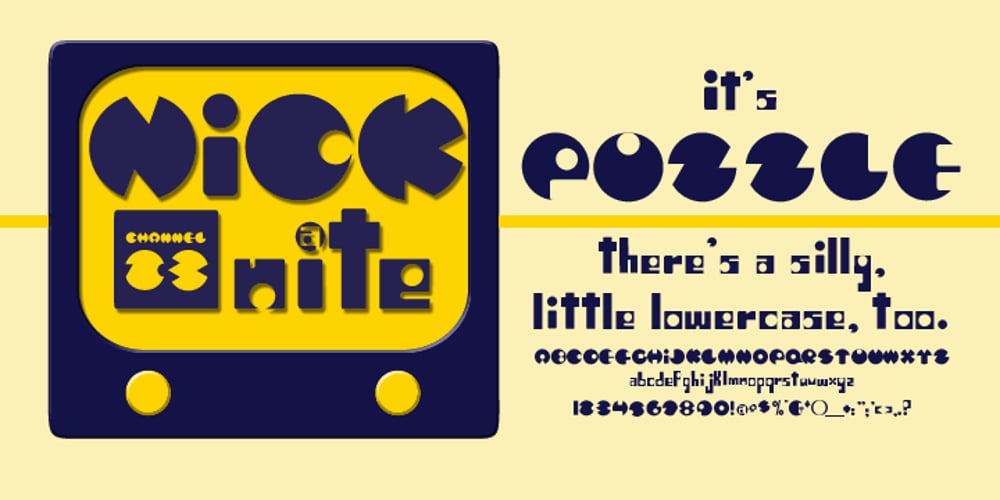
Puzzle Font Family was designed by Randy Harris and published by Just My Type. Puzzle contains 1 styles and family package options. Call me some kind of weird, but I find designing fonts about the most fun you can have out of bed. Legible-scmedgible, sometimes you just have follow the font muse regardless of where she takes you. She threw me a circle, a triangle, a rounded stroke and a rounded-cornered square; “Make glyphs,” she sang. Okay! Is it legible? Yes. Is it readable? Kinda. For the right project, though, that’s enough!